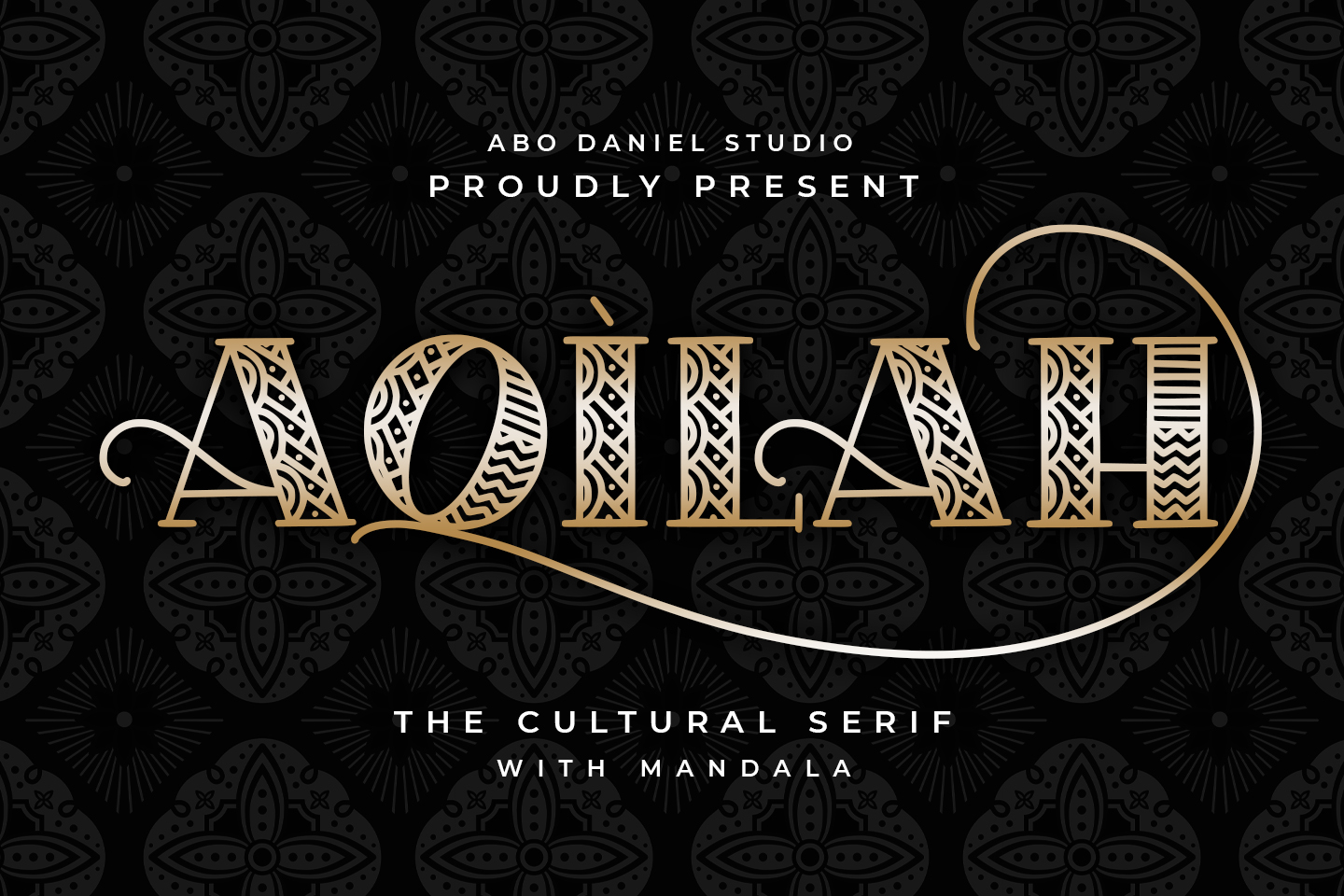
Preview and download Aqilah Font. Created by Abo Daniel in Fancy Retro styles with Free for personal use license.
Thank You for Downloading AQILAH - the cultural serif - AQILAH is a very unique serif font with a touch of cultural ornament. It is great for branding, packaging, logos, cards, T-shirt design, tote bag design, cutting, vinyl, silhouette, embroidery, and another of your project designs. This fonts license is Free For Personal Use Only with limited feature. if You Want to Use for Commercial Project, Please Purchase it on the following link https://www.creativefabrica.com/product/aqilah/ref/236322/ or contact us at panggahlaksono@gmail.com Regards Abo Daniel Studio |